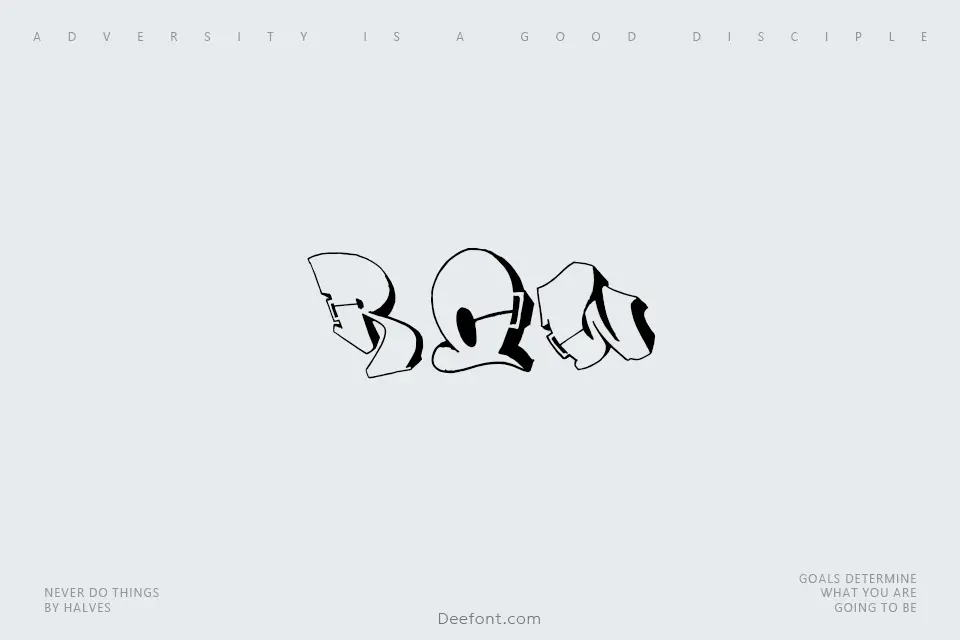
Row Font
Row is a dynamic graffiti-inspired script font that combines urban energy with expressive letterforms. Designed by Rizkaard Dakthirteen, this typeface captures the essence of street art and contemporary graffiti culture. With its bold, flowing strokes and distinctive character, Row is ideal for creating eye-catching headlines, logos, posters, and branding projects that demand attention. Perfect for designers seeking to infuse their work with authentic urban aesthetic and rebellious creativity, this versatile font brings dynamic flair to both digital and print applications.